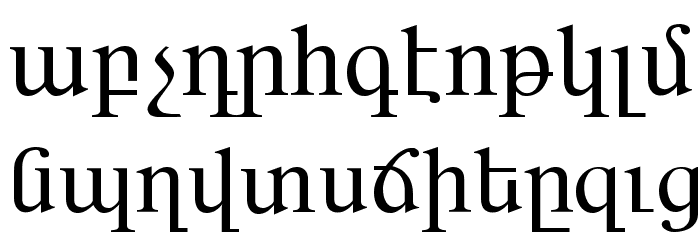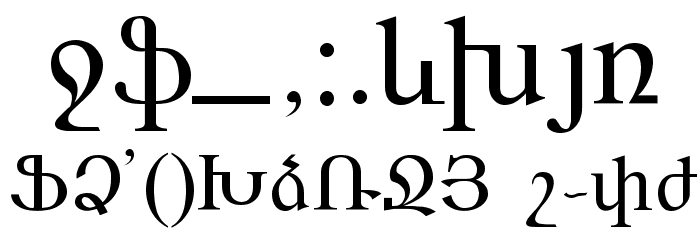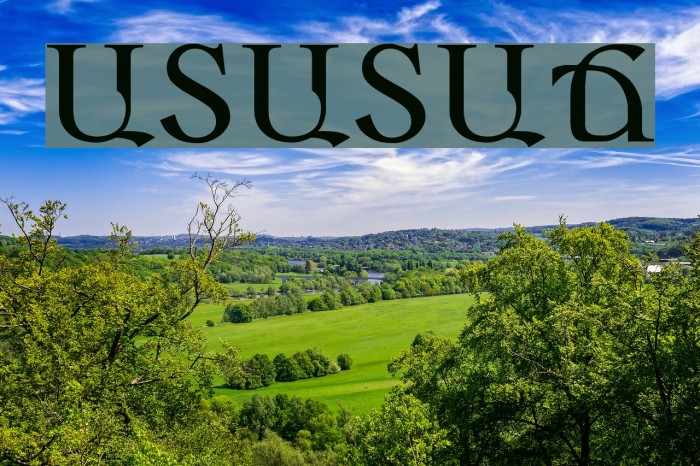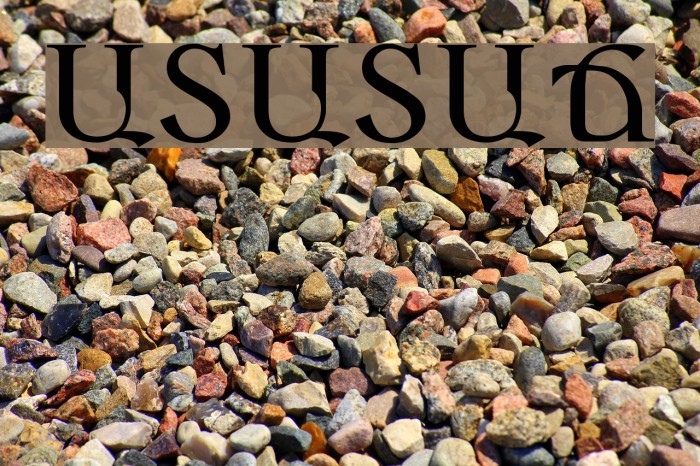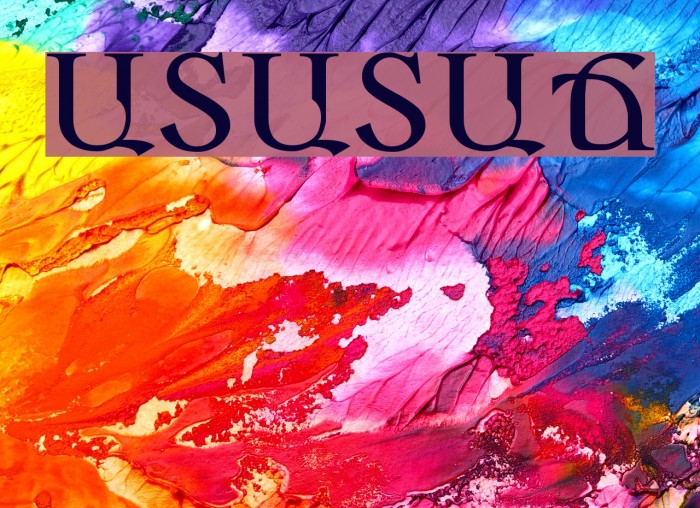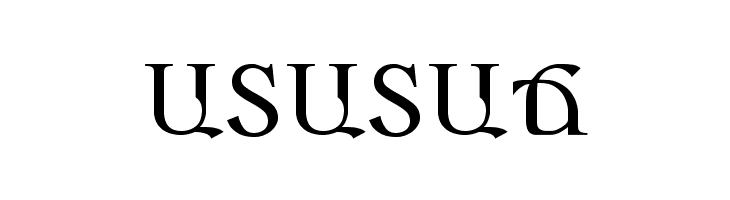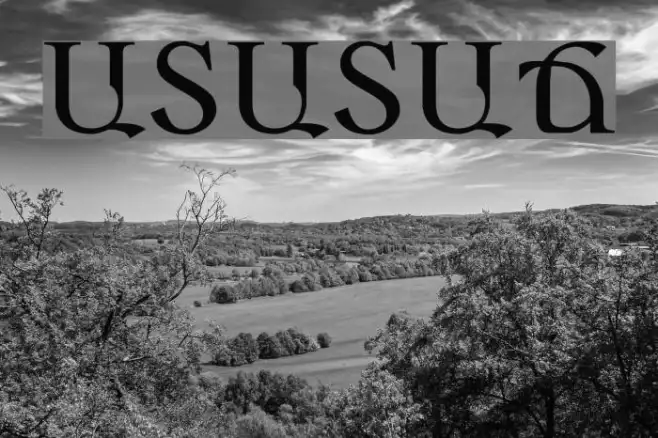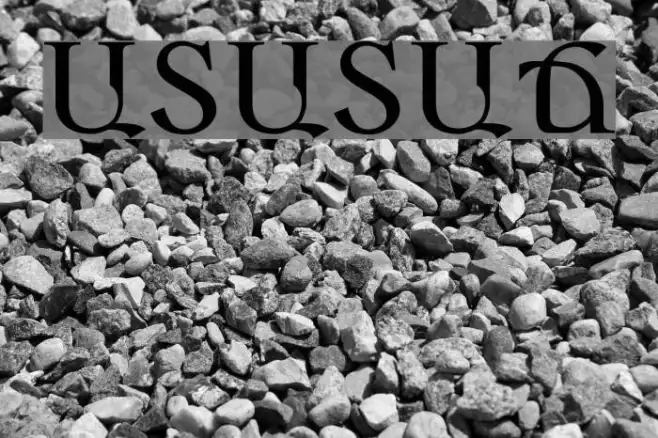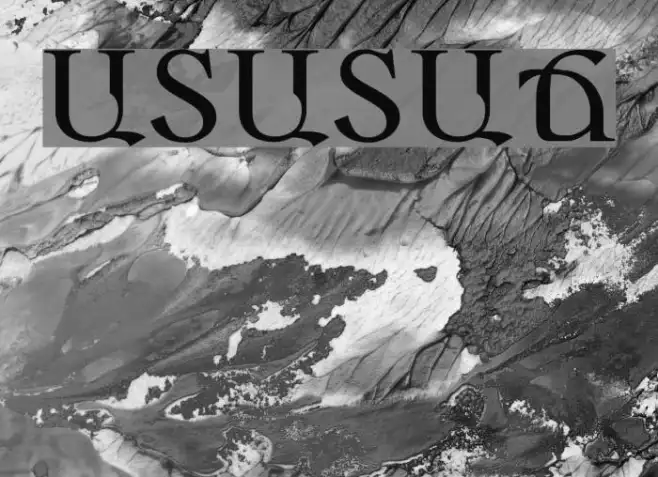
ARARAT Font
This font features a distinct and elegant style, characterized by its sharp serifs and balanced proportions. The letters exhibit a classic form with a modern twist, making it suitable for a variety of design applications. The strokes are consistent, with a medium contrast that adds to its readability. The overall appearance is both sophisticated and approachable, making it versatile for both formal and casual uses. The spacing between characters is normal, ensuring clarity and legibility across different sizes.
A sharp serif font with balanced proportions and medium contrast, ideal for versatile design applications.
- Proposed Projects: This font is perfect for editorial design, branding projects, book covers, and formal invitations due to its elegant and classic style.
- Category: Serif
- Overall Style: Classic